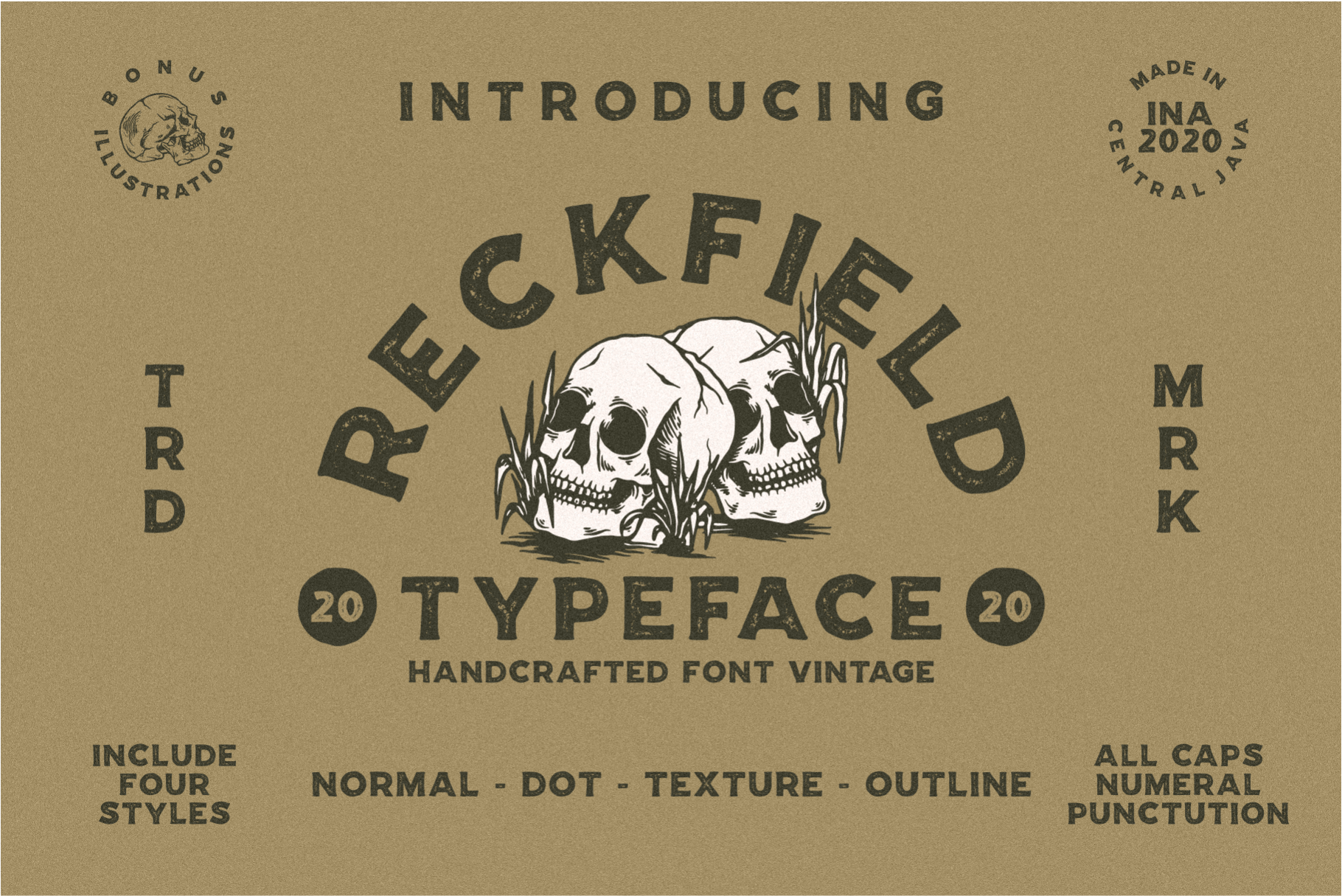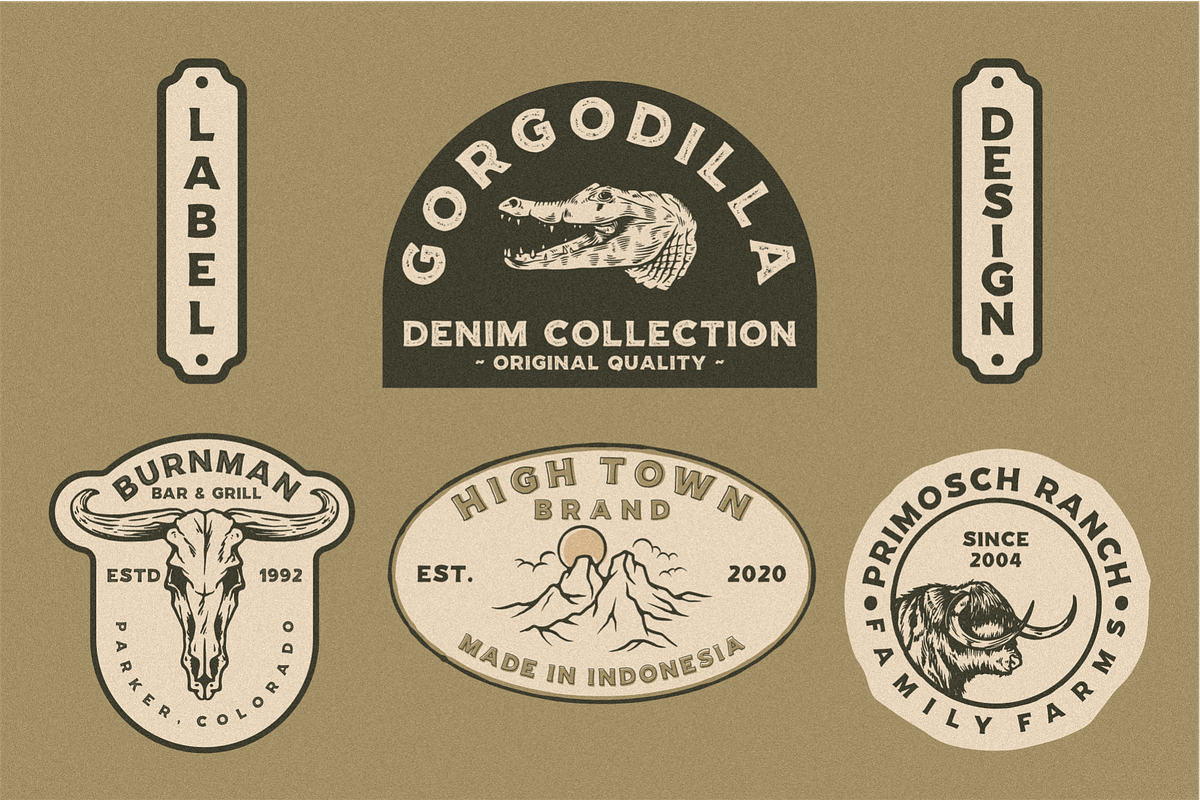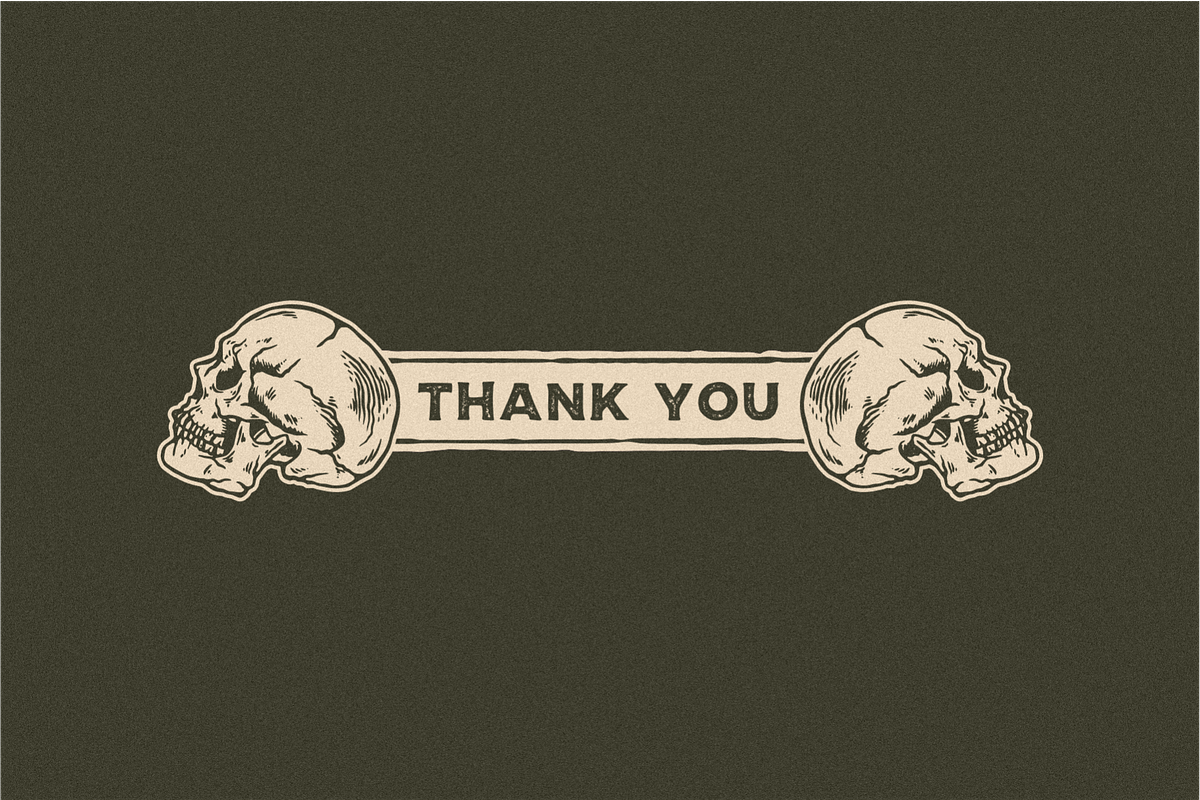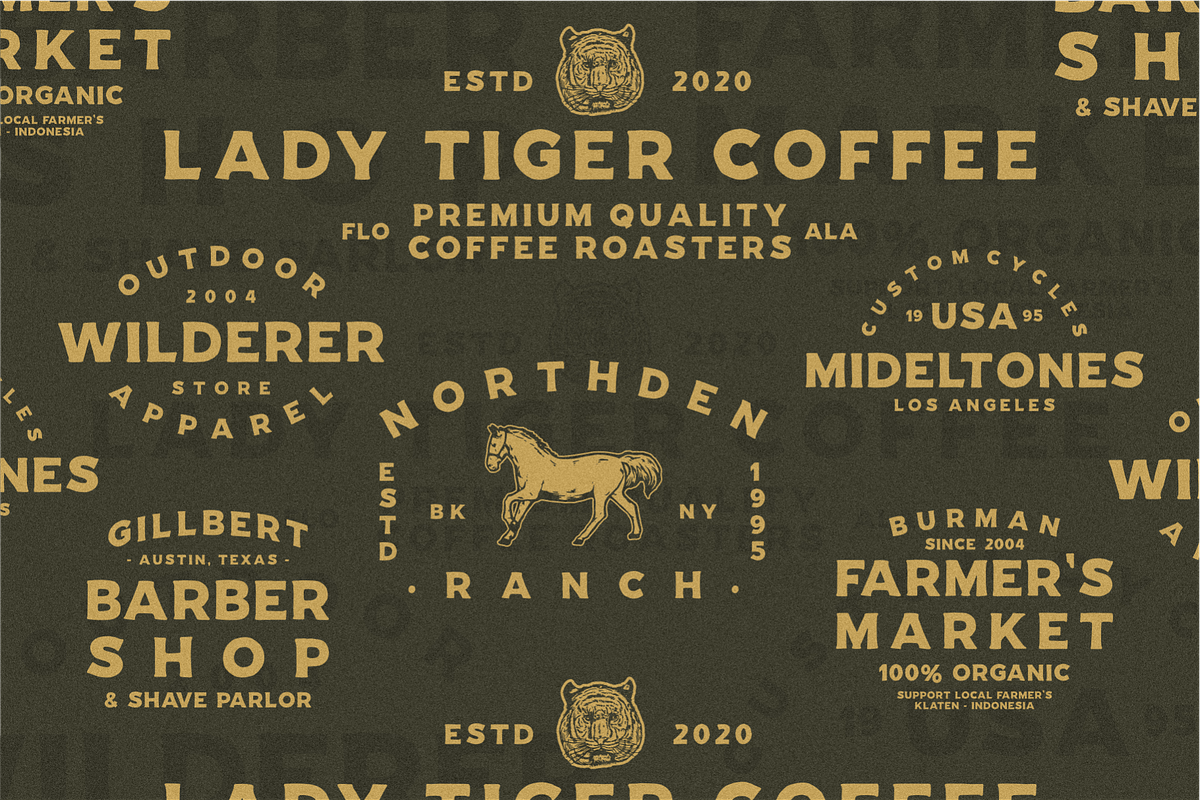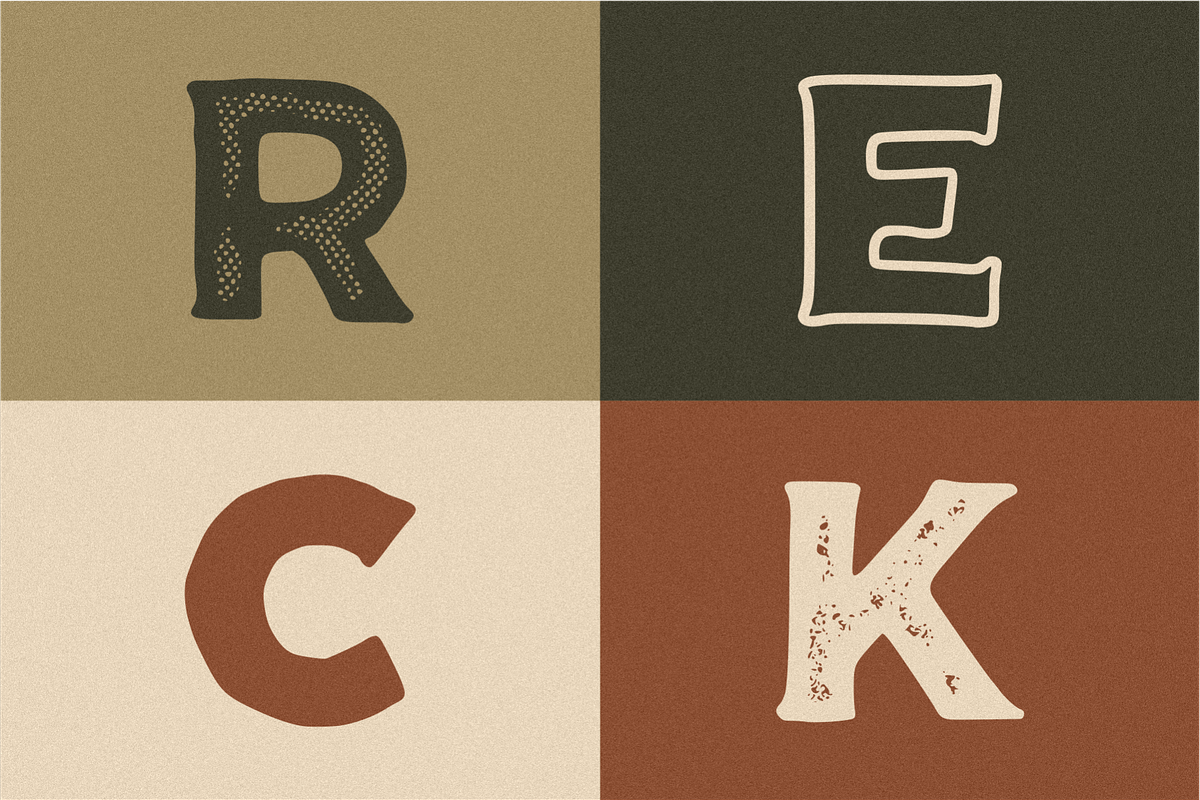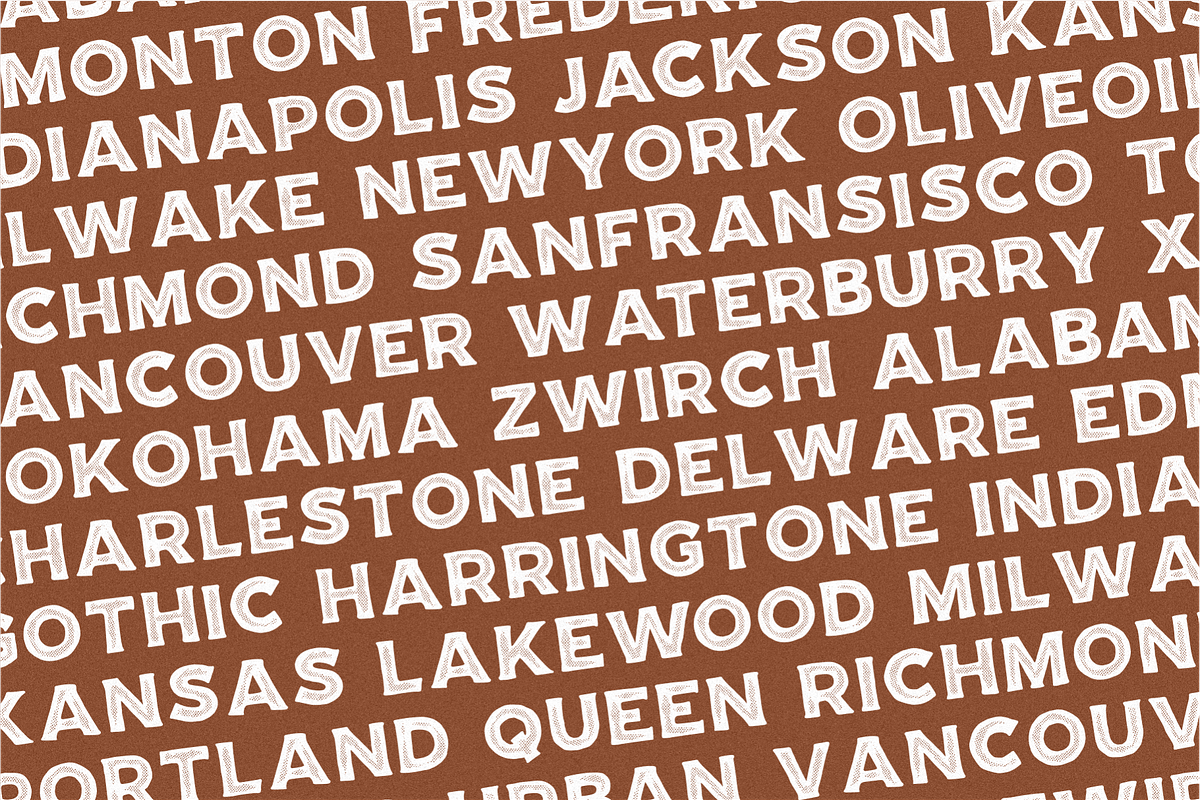
Reckfield Typeface
Rockfield is a font with a coarse hand-written paint style, perfect for businesses that need a classic vintage or 70s / 80s touch. This font includes 4 styles in the package, normal, dot, texture, and outline.
Feature:
- Number,
- Uppercase,
- Punctuation,